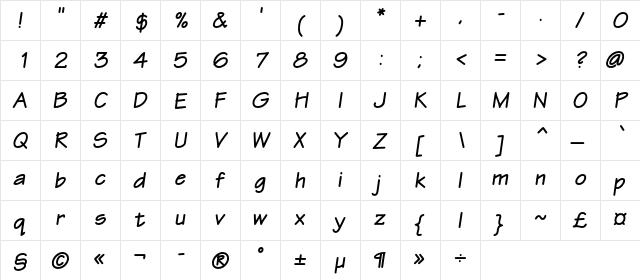
EskizTwoC Bold Italic
Design Context for EskizTwoC Typeface
EskizTwoC is a composed and adaptable typeface that performs quietly and consistently across a wide range of design contexts. The dynamic lean of this cut emphasises speed and emphasis in any layout. Its bold stroke weight gives it real presence on the page.
Pro Tip: Use EskizTwoC for emphasis, pull quotes, and subheadings where its slanted energy can add rhythm to the layout.